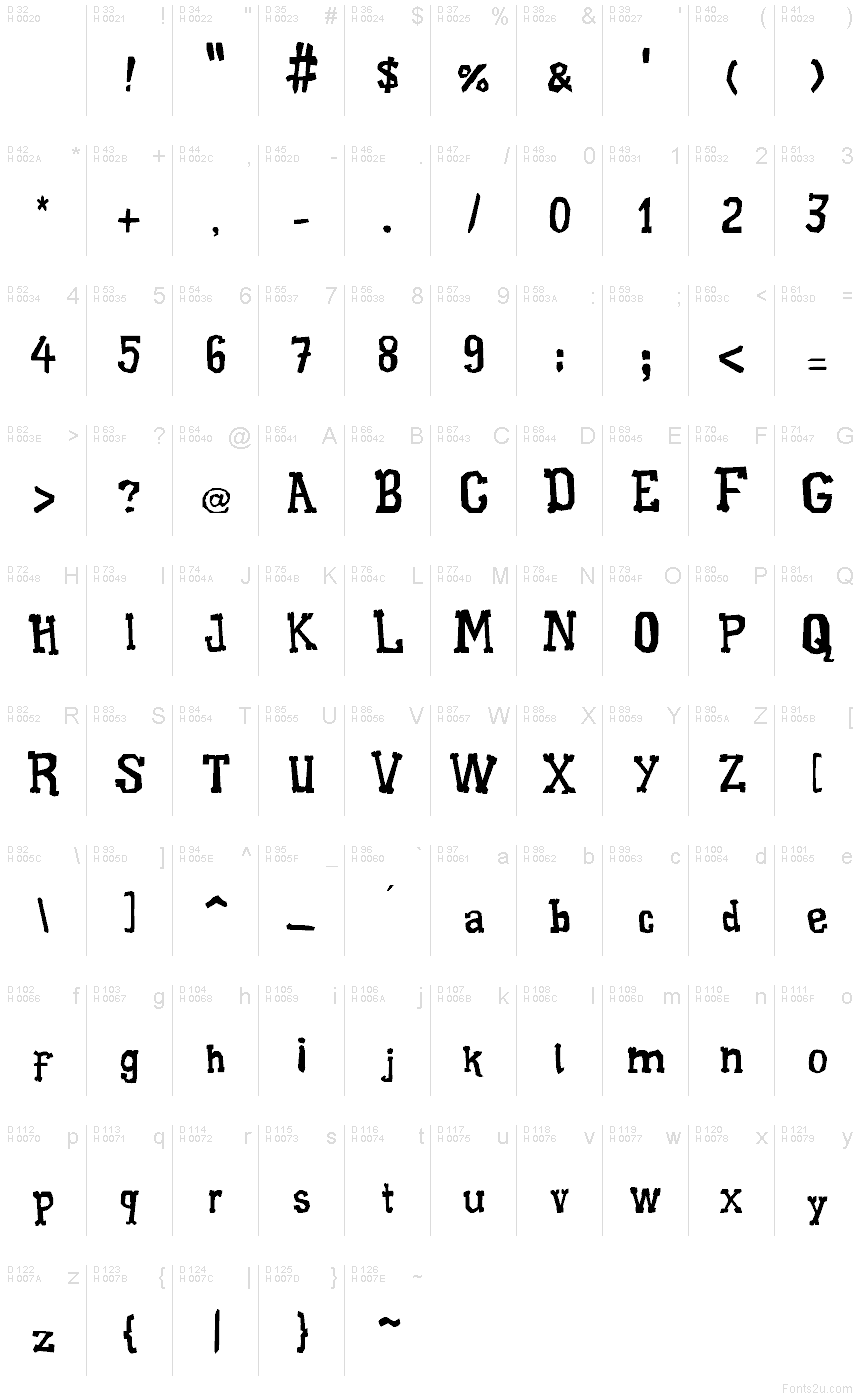
Xilo Galdino Regular
Xilo Galdino font by Galdino Otten Fonts is an antique, textured display font inspired by historical woodcut styles. Its rustic and handcrafted appearance gives it a unique, old-world charm, making it instantly distinct as a typeface.
This free display font can be used in movie titles, book covers, classic posters, commercials and ads with historical references or ancient inspiration. Casino websites/games and especially online games involving fantasy themes can make the most out of this one!